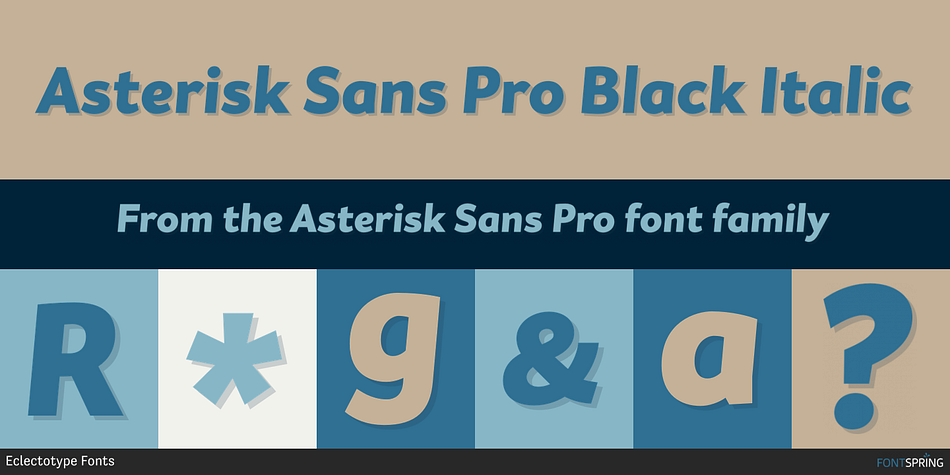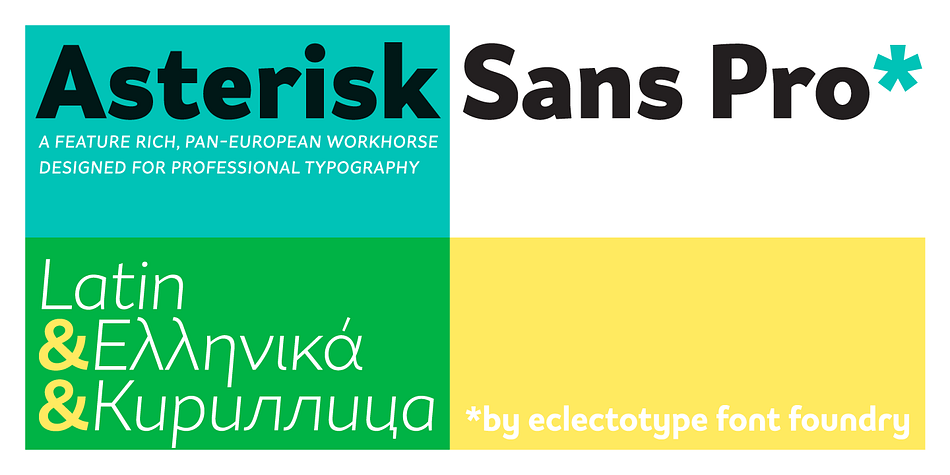
Asterisk Sans Pro Black Italic
Asterisk Sans Pro is a sans serif font family. This typeface has sixteen styles and was published by Schizotype Fonts.
The market for humanistic sans serif type families is saturated, so what can a new release add, and what does it take to stand out from the crowd?
Asterisk Sans Pro (named after my favourite glyph to make) aims to be a highly versatile type family; massively useful due to its pan-European language support and bounty of OpenType features which make it the ideal choice for demanding typography. The look is contemporary; details which give the fonts character at large sizes all but disappear when small, making the middle weights suitable for large chunks of text. The family ranges from a hairline ultra light to a pretty weighty black – a must in a new typeface.
Asterisk Sans Pro supports Latin, modern Greek and Cyrillic, with localized forms for Bulgarian, Serbian and Macedonian to boot. This is rare enough, but to have small caps for all these scripts in both upright and italic fonts is a big plus. Your client may not need all this language support right now, but this typeface gives them the option to grow while keeping a consistent look, and at a similar price point to families with a much narrower scope.
The ability to customize Asterisk Sans Pro through the use of Stylistic Sets in OpenType savvy layout programs means you are really in control. Want more italic forms in the uprights? Go for it. A more Roman italic? Easy! The spurless m, n, r and u, accessible through SS13 give a graphic, almost bauhaus feel. The Dutch IJ glyph can be changed to a much cooler thing using SS14, and The family even supports ij-acute.
Other OpenType features include a wealth of numeral styles (tabular and proportional, lining and oldstyle, plus small cap figures, numerators, denominators, subscript and superscript) and automatic fractions. There are also case-sensitive forms for all caps settings, a bunch of useful arrows, and superscript lower case Latin letters. All in, there are well over 1200 glyphs per font, making Asterisk Sans Pro an invaluable tool in your typeface arsenal, great for everything from corporate identities to editorial work.